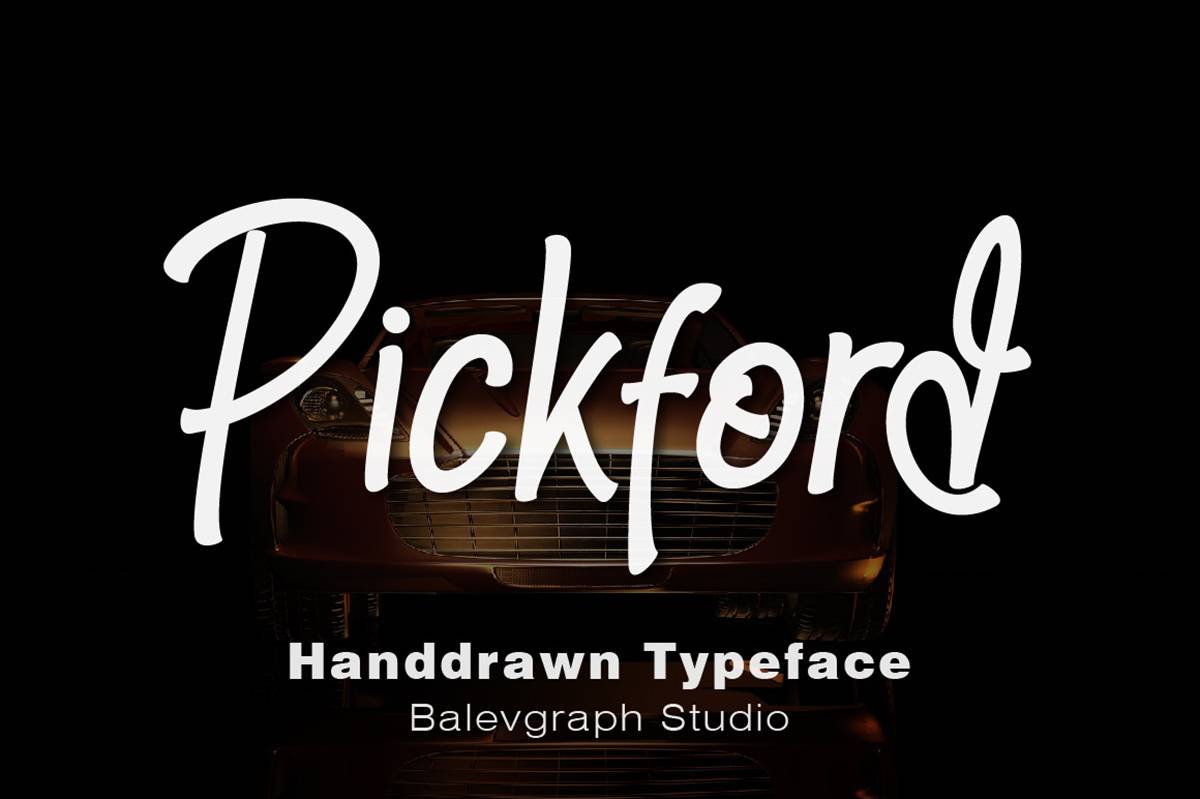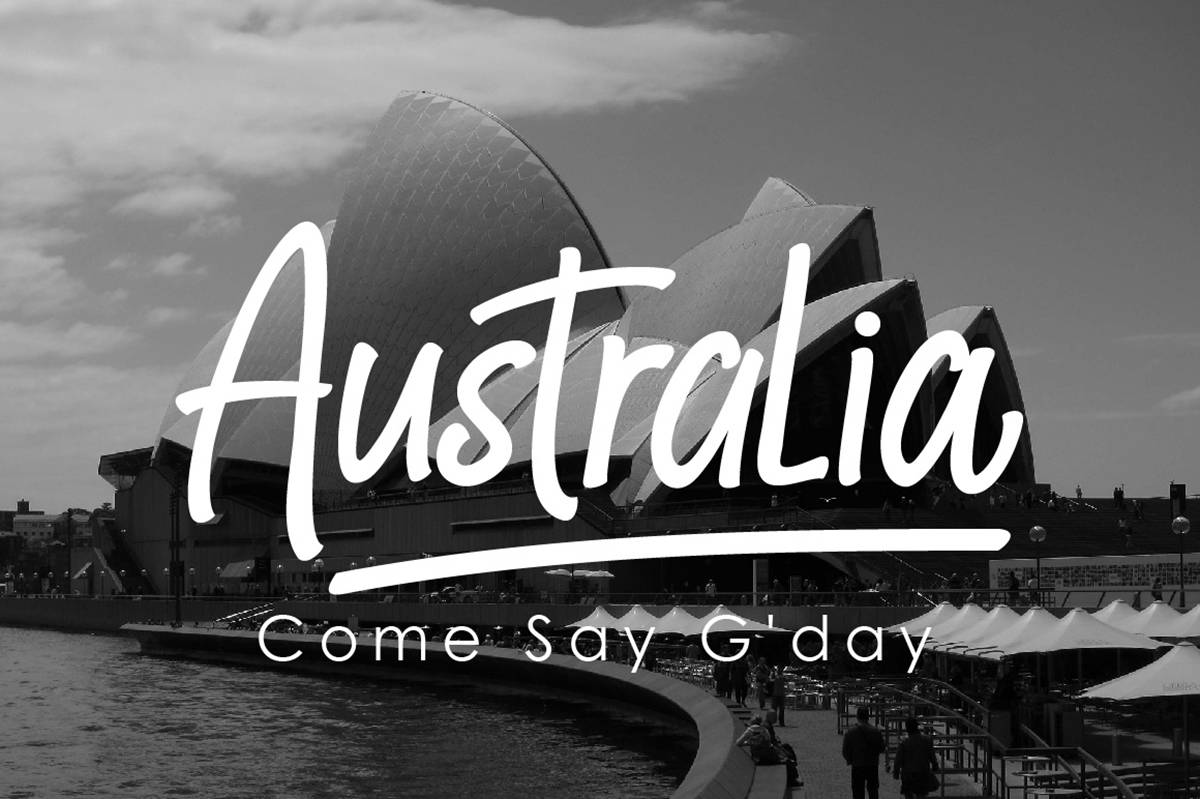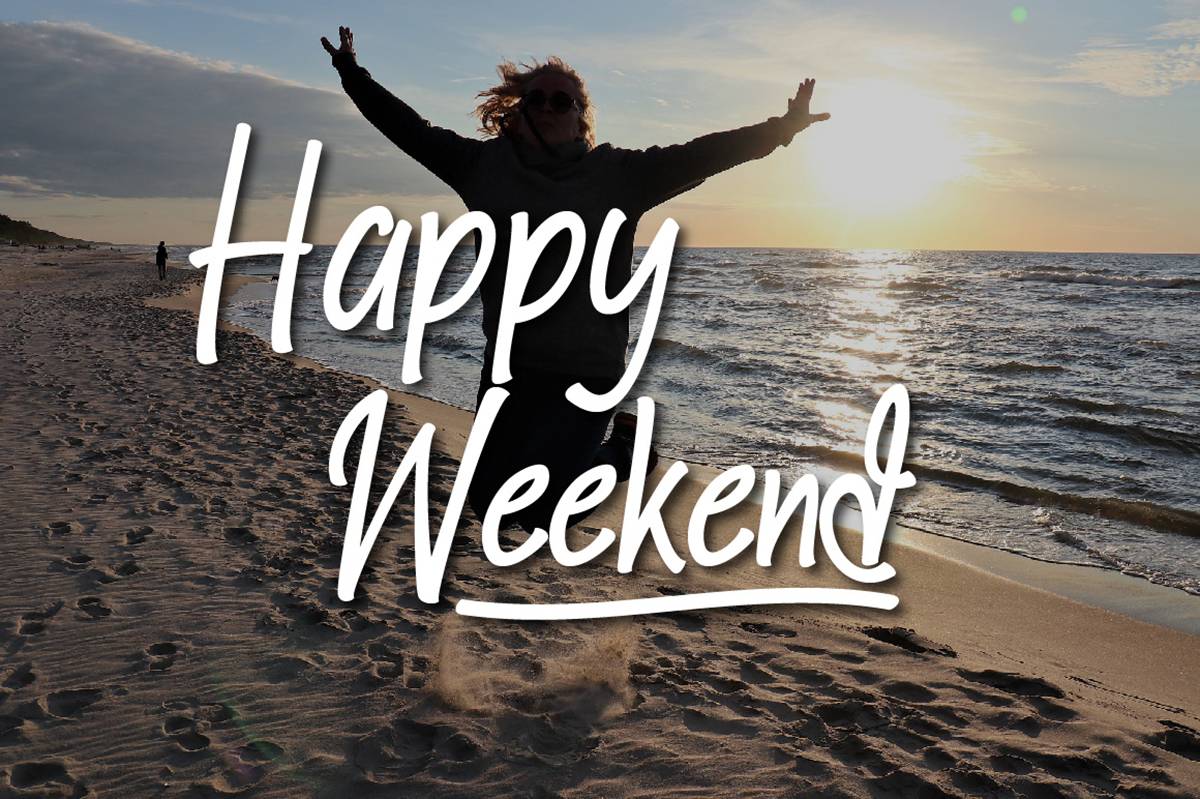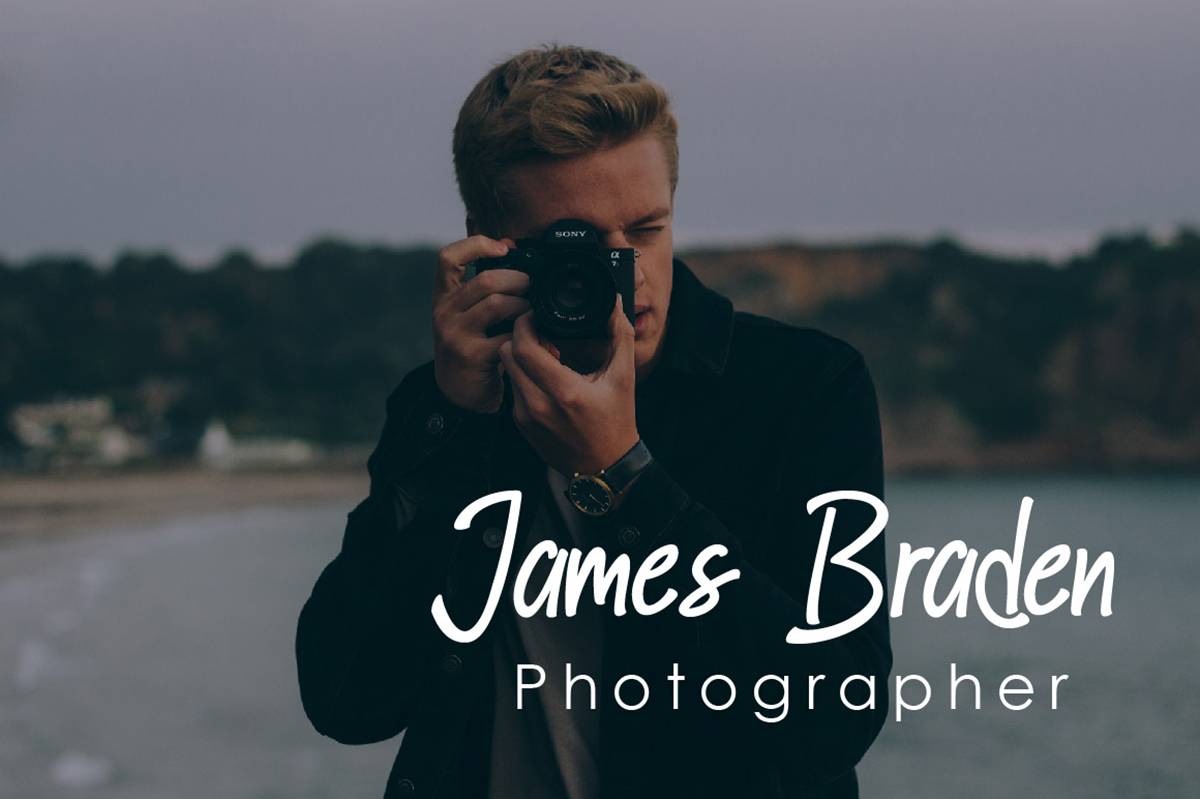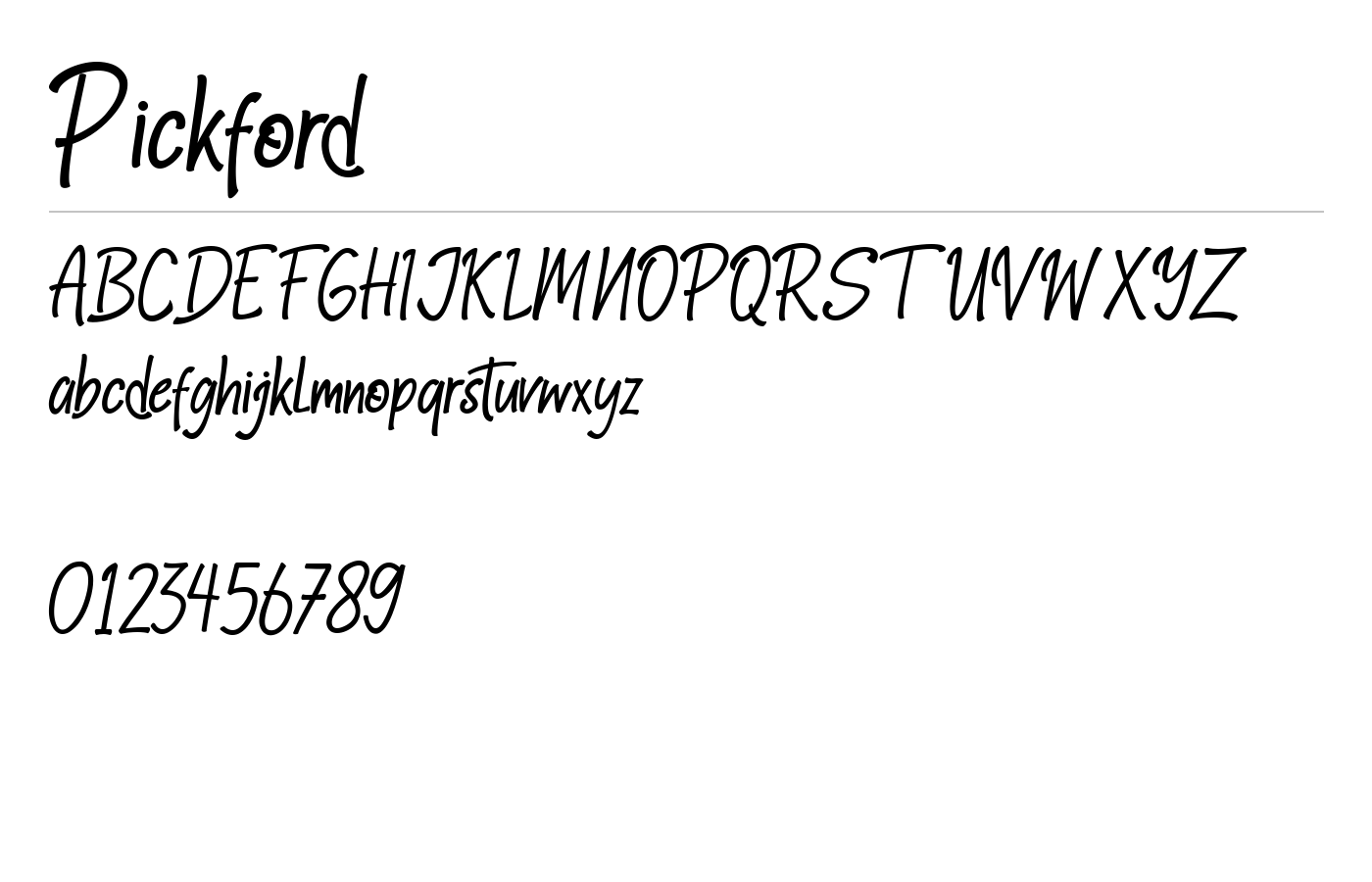
Pickford is a lively, casual script-style font with a handwritten feel, characterized by its slender, slightly condensed letterforms and moderate contrast. Its playful and organic strokes give it an approachable, friendly personality, making it ideal for creative projects, informal branding, and eye-catching headlines where a personal touch is desired. This font works well in settings like invitations, logos, and posters that benefit from a dynamic yet readable hand-lettered style.
Pickford Font
About Pickford Font
| Font family | Pickford Font |
| Designer | Iqbal Pauji |